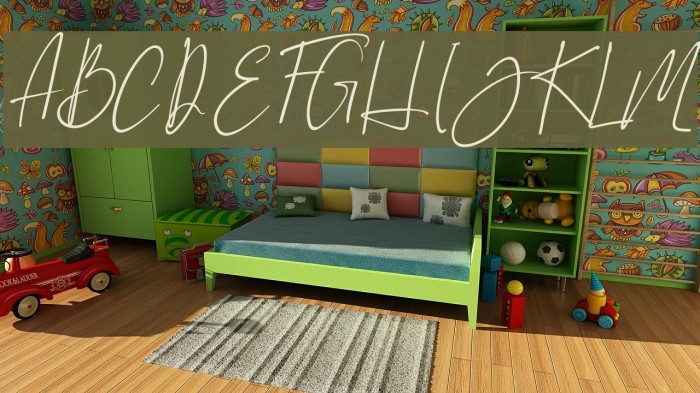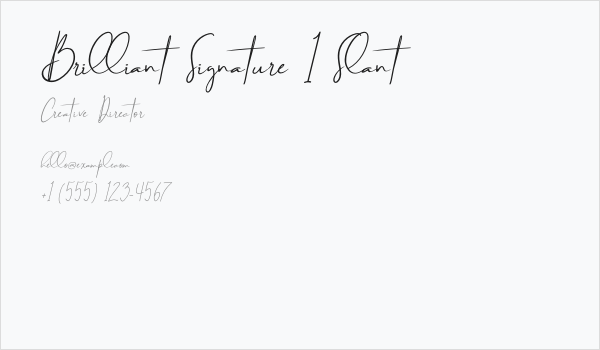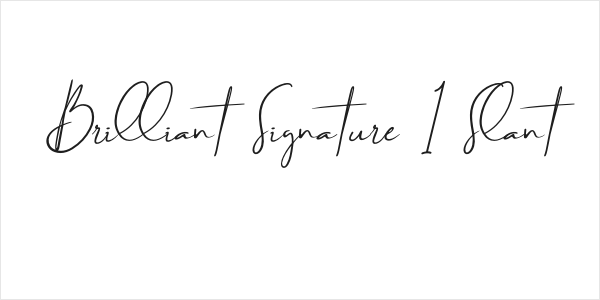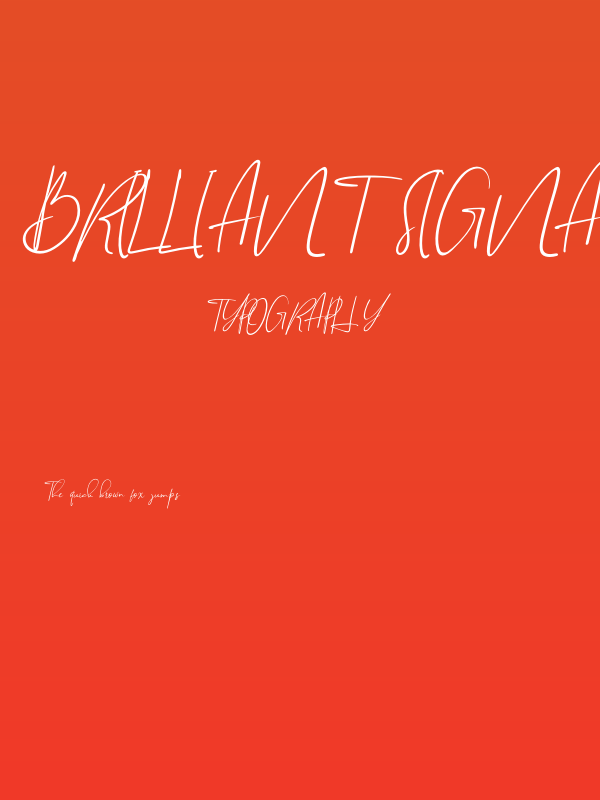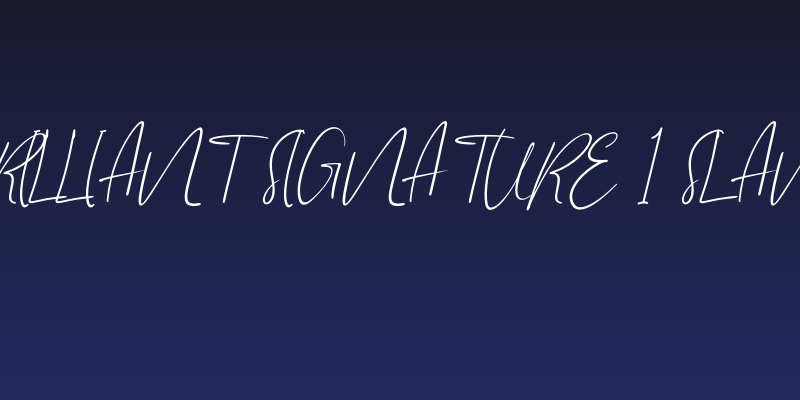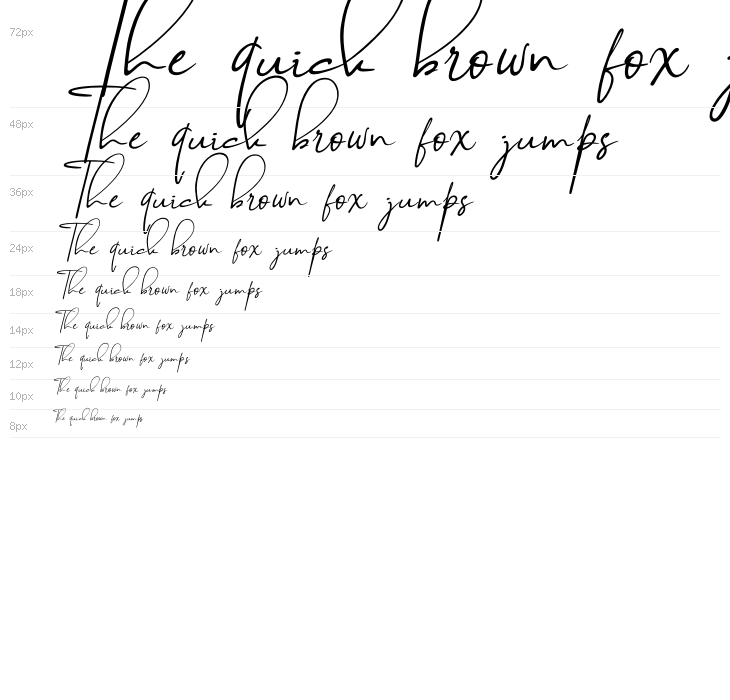
Brilliant Signature 1 Slant Font
Brilliant Signature 1 Slant Description
This font exudes a modern and elegant handwritten style, characterized by its fluid and dynamic strokes. The letters are slanted, giving it a sense of motion and sophistication. The uppercase letters are tall and slender, while the lowercase letters maintain a consistent flow, enhancing readability. The numerals and special characters are crafted with the same attention to detail, ensuring a cohesive look across all elements. The overall design is both stylish and versatile, making it suitable for a variety of creative applications.
Use CaseLogos, Invitations, Personal Branding
Proposed ProjectsIdeal for wedding invitations, personal branding, signature logos, and elegant stationery.